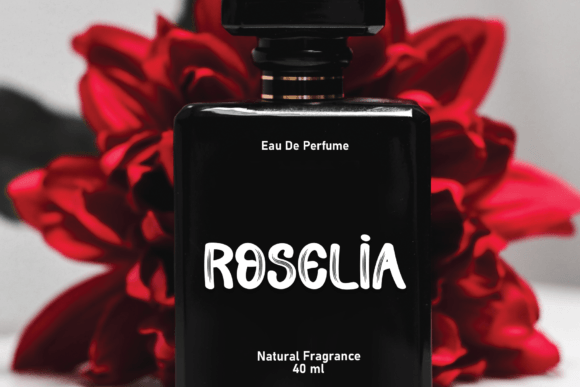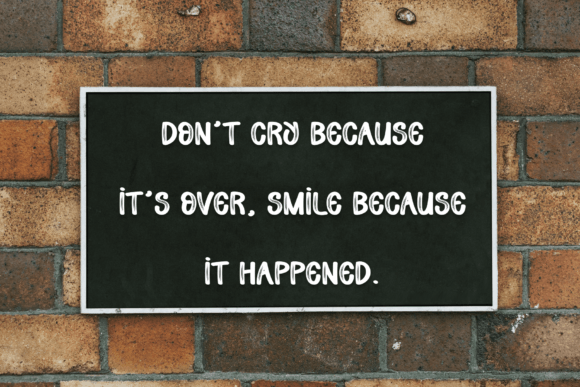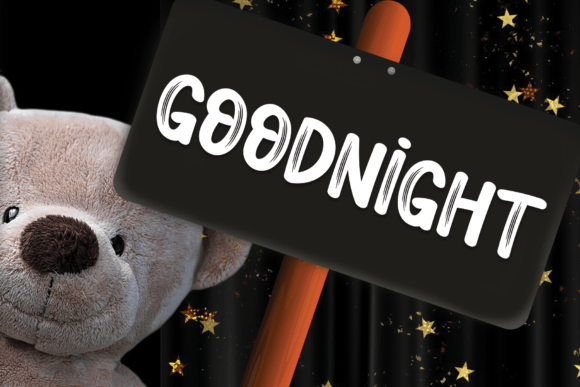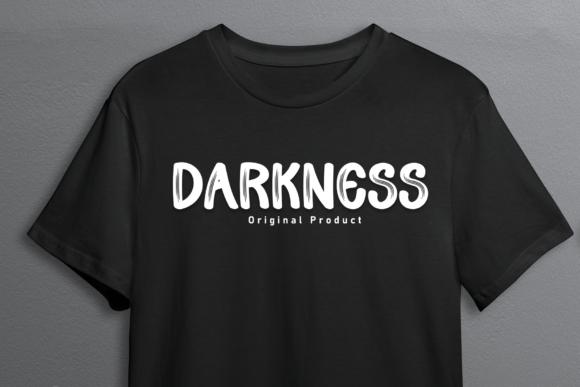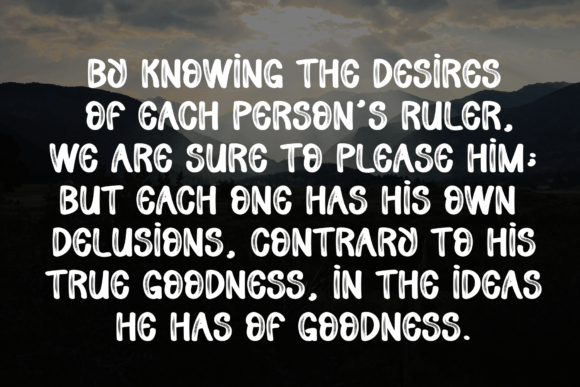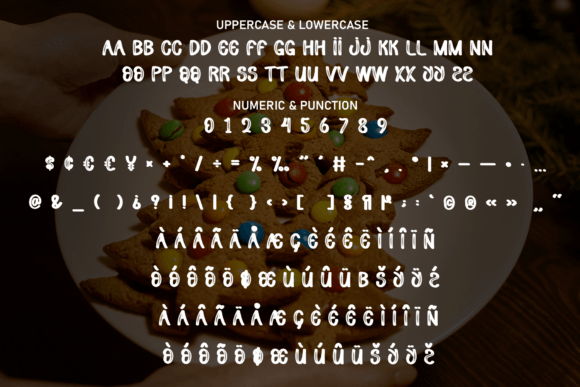
Introduction to Nice Cookies Font
Have you ever been stuck on a creative project, staring at a blank page, and just needed a little nudge to get those creative juices flowing? That’s where the Nice Cookies Font comes in – a playful and charming display font that’s guaranteed to add a touch of whimsy to your text. Its unique design makes it perfect for titles, invitations, and anything that needs a friendly, eye-catching look.
Key Features of Nice Cookies Font
- High-quality design resource suitable for creative projects, offering a unique and playful touch.
Honest Review: Nice Cookies Font
As a designer, I’m always on the lookout for unique and high-quality design resources to elevate my creative projects. The Nice Cookies Font caught my eye with its playful, handwritten style that screams ‘fun’ and ‘approachable’. I decided to dive in and see if it lives up to its promise.
What works well: ✨ The font is incredibly versatile, suitable for a wide range of projects from social media graphics to packaging design. I appreciate the transparent background option, which makes it easy to work with in various design applications. The high quality of the font is also noteworthy, with crisp lines and a consistent feel throughout.
- Perfect for playful, creative projects
- Highly versatile and suitable for various design applications
However, I do have a few reservations: ⚠️ The font is quite large, which may not be ideal for smaller design elements or text-heavy projects. Additionally, the font’s whimsical nature may not be suitable for more formal or professional designs.
Overall, I’m impressed with the Nice Cookies Font’s potential for creative projects. While it may have some limitations, its unique style and high quality make it a valuable addition to any designer’s toolkit. I’d recommend giving it a try and seeing how it fits into your design workflow.
Nice Cookies Font is perfect for various creative projects, including:
- Illustration
- Typography
- Branding
To get the most out of Nice Cookies Font, use it in combination with other high-quality design resources. Experiment with different font sizes, colors, and styles to create unique and eye-catching designs.